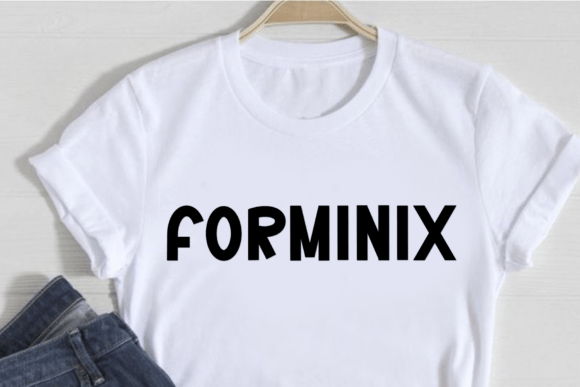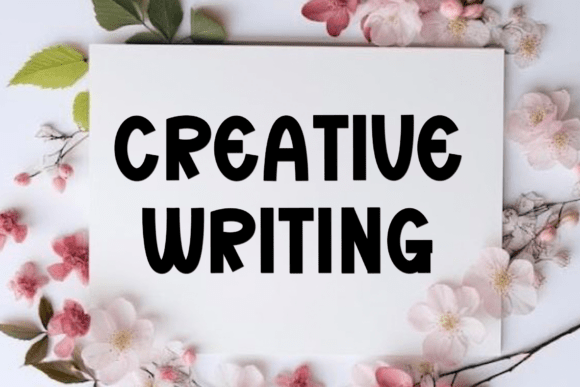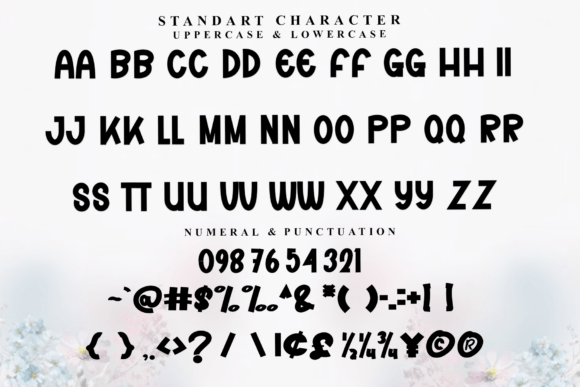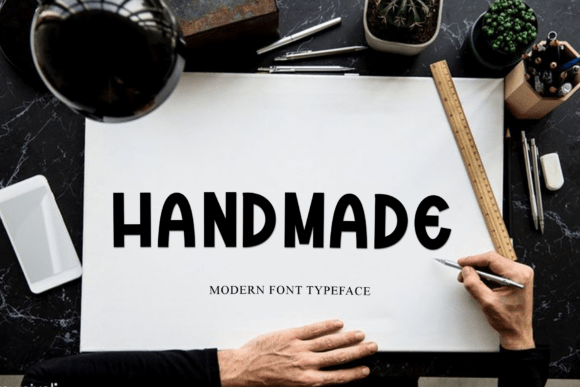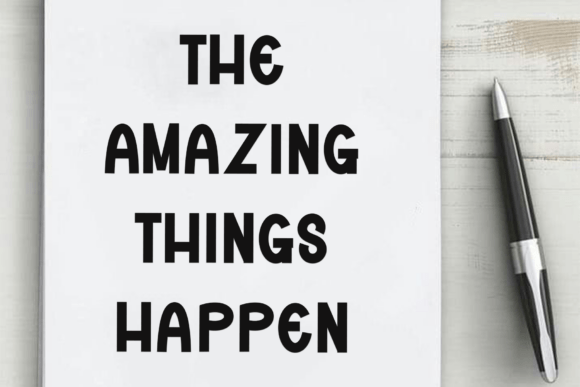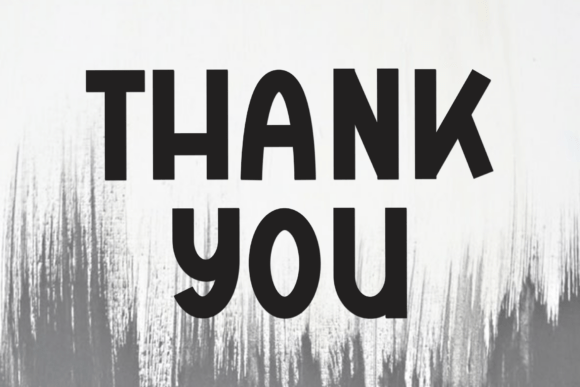
Discover the Perfect Blend of Warmth and Whimsy with Book Bold Font
Have you ever found yourself sitting at your desk, surrounded by scattered papers, paint splatters, and an endless supply of creative ideas? That’s exactly where I was when I stumbled upon the Book Bold Font. Its charming, hand-drawn aesthetic immediately caught my eye and sparked a sense of excitement. As a designer, I’m always on the lookout for fonts that evoke a sense of warmth and friendliness, and Book Bold Font delivers just that.
With its round, playful strokes, Book Bold Font is the perfect addition to any design project. Whether you’re creating invitations, social media graphics, or personal projects, this font adds a unique and fun touch. And the best part? It’s designed to be user-friendly, with standard PUA Encoded glyphs that work seamlessly in popular design software like Adobe Photoshop, Corel, and Adobe Illustrator.
Key Features of Book Bold Font
- Font Family: Book Bold is a part of the Book font family, designed to provide a clear and readable text.
- Unique Characteristics: Book Bold features a sturdy and elegant design, making it suitable for body text in books, magazines, and other publications.
- Language Support: Supports a wide range of languages, including Latin, Cyrillic, and Greek alphabets, making it a versatile font for global publications.
Book Bold Font Review
Overall, I have mixed feelings about the Book Bold Font. While it has some great qualities, there are also some areas where it falls short.
- ✨ **Legibility**: The font is highly legible, even at smaller font sizes, making it perfect for body text and reading materials.
- ✨ **Warm and Inviting**: The font has a warm, inviting feel to it, making it ideal for books, magazines, and other publications that aim to engage the reader.
- ✨ **Classic Look**: The font has a classic, timeless look that works well with a variety of design styles.
- ⚠️ **Limited Versatility**: While the font is great for body text, it may not be the best choice for headlines or titles, where a bolder, more attention-grabbing font is needed.
- ⚠️ **Not Ideal for Digital Use**: The font may not display as well in digital formats, such as e-books or websites, where the text may become blurry or difficult to read.
Overall, I would give the Book Bold Font 3.5 out of 5 stars. While it excels in certain areas, it falls short in others. However, if you’re looking for a font for a specific project, it may still be worth considering.
Tips for Getting the Most Out of Book Bold Font
Use Book Bold Font to create a classic and elegant look in your designs. It pairs well with serif fonts and is ideal for book covers, wedding invitations, and other formal designs.
Book Bold Font is commonly used for:
- Book covers and book titles
- Formal event invitations and announcements
- Classic and elegant logo designs